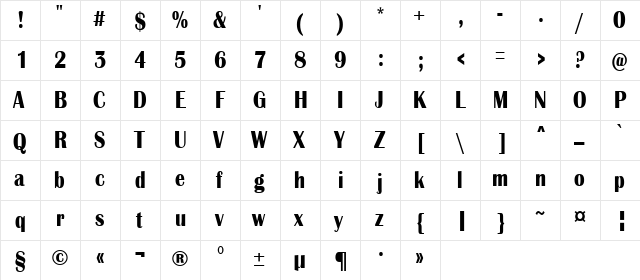
a_AlbionicNr Bold
Design Context for a_AlbionicNr Typeface
a_AlbionicNr is a composed and adaptable typeface that performs quietly and consistently across a wide range of design contexts. The heavy weight commands attention and anchors typographic hierarchies.